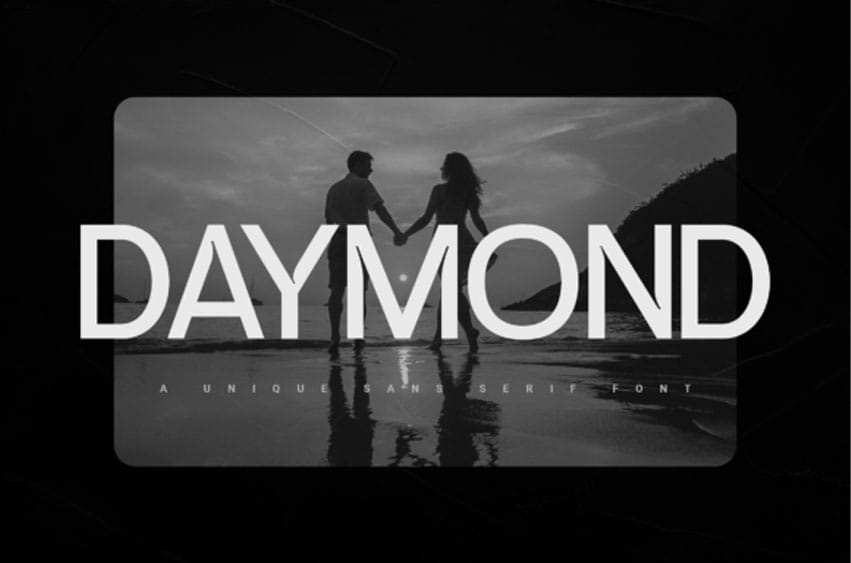
Daymond Font is a modern sans serif font that blends minimalist elegance with a touch of unique character. Carefully crafted to deliver a clean yet distinctive impression, Daymond is the perfect choice for a wide array of your creative projects.
With its sharp lines and balanced proportions, Daymond offers exceptional legibility at various sizes, making it ideal for headings, body text, logos, branding, editorial design, websites, and much more. Its contemporary aesthetic will add a professional and classy touch to any design.
– Uppercase & Lowercase: A complete set of alphabetic characters in harmonious uppercase and lowercase styles.
– Numeric: All numbers from 0-9 for your numerical needs.
– Multilingual Support: Supports various languages with an extensive character set, including special accents and symbols, ensuring global reach for your designs.
– Symbols: A range of common symbols and punctuation marks to complement your typography.
– Ligatures & Alternates: Includes beautifully designed ligatures and a unique alternate form for “fifty”, adding a stylish and distinctive touch to your text.